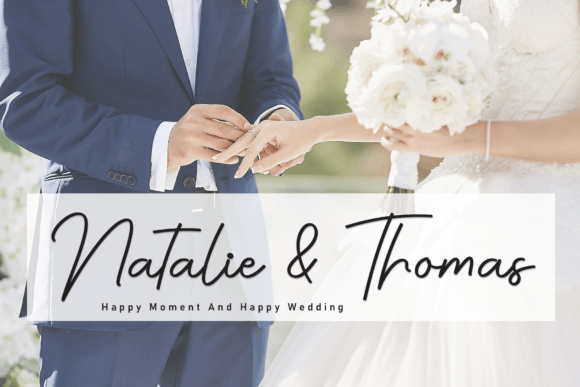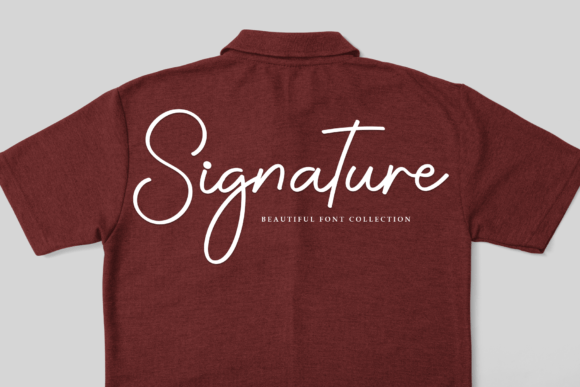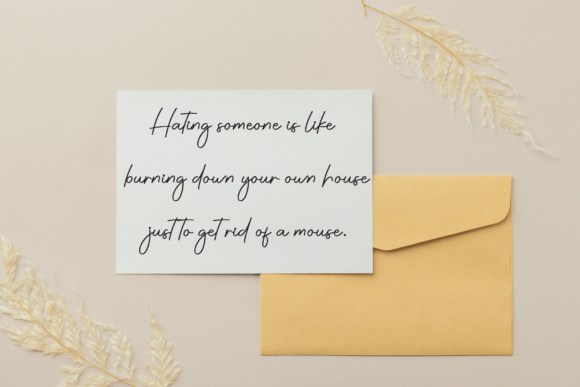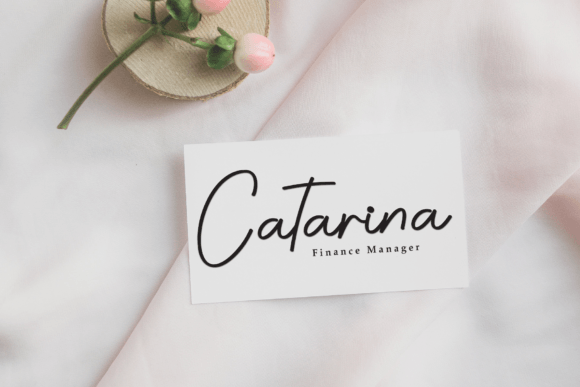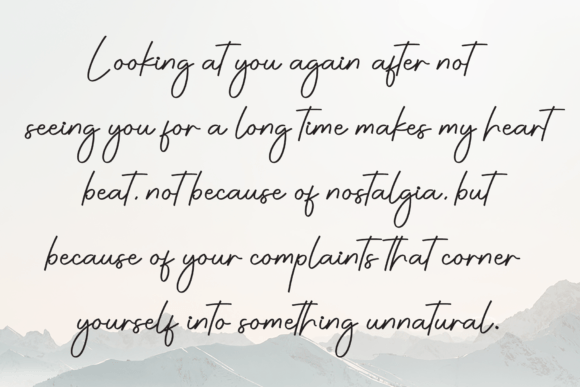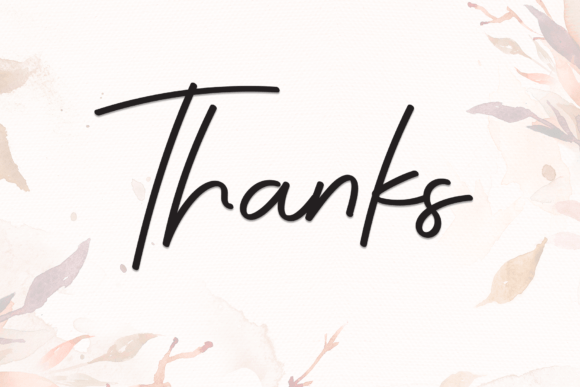
Introducing Autumn Festival Font: A Timeless Handwritten Delight
As the seasons change and autumn leaves start to fall, designers and crafters are on the lookout for inspiration to create warm and inviting designs. If you’re searching for a font that embodies the cozy spirit of autumn, look no further than the Autumn Festival Font. This lovely and timeless handwritten font is perfect for creating eye-catching logos, branding, and quotes that will make your design come alive!
The Unique Charm of Autumn Festival Font
What sets Autumn Festival Font apart from other fonts is its unique and beautiful touch. Every letter has been carefully crafted to showcase a distinctive character that is both elegant and playful. The font’s handwritten style gives it a personal and approachable feel, making it perfect for designs that require a touch of warmth and personality.
Autumn Festival Font is a versatile font that can be used in a variety of design projects. Whether you’re a designer looking to create stunning logos, branding, and marketing materials, or a crafter seeking to add a personal touch to your DIY projects, this font is the perfect choice. Its legibility and aesthetic appeal make it suitable for use in:
- Quotes and social media graphics
- Invitations and party decorations
- DIY crafts and scrapbooking
Why Choose Autumn Festival Font?
With so many fonts available, why choose Autumn Festival Font? Here are just a few reasons why this font stands out:
- Unique and distinctive: Every letter has a unique and beautiful touch that sets it apart from other fonts.
- Timeless and versatile: The font’s classic handwritten style ensures it will remain relevant for years to come.
- Easy to read: The font’s clear and legible design makes it perfect for use in a variety of design projects.
- Customizable: The font can be easily customized to fit your design needs, making it perfect for use in a variety of contexts.
Tips for Using Autumn Festival Font
To get the most out of Autumn Festival Font, here are a few tips to keep in mind:
- Pair with complementary fonts: Combine Autumn Festival Font with other fonts to create a unique and visually appealing design.
- Experiment with colors: The font’s warm and inviting style lends itself perfectly to rich autumnal colors like orange, red, and yellow.
- Use in combination with graphics: The font’s playful style makes it perfect for use in combination with graphics and illustrations.